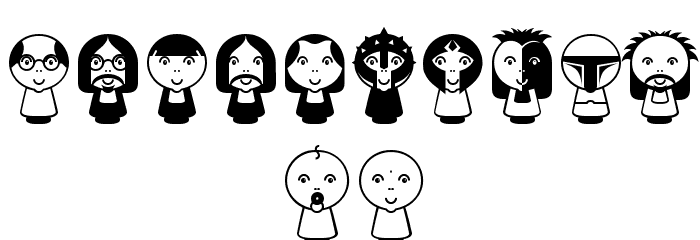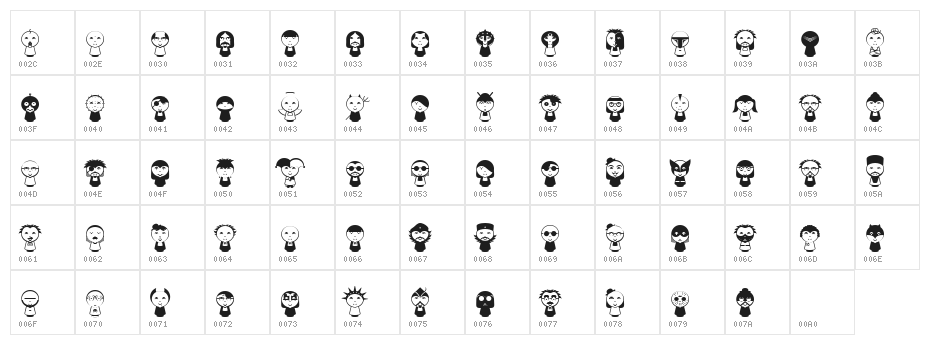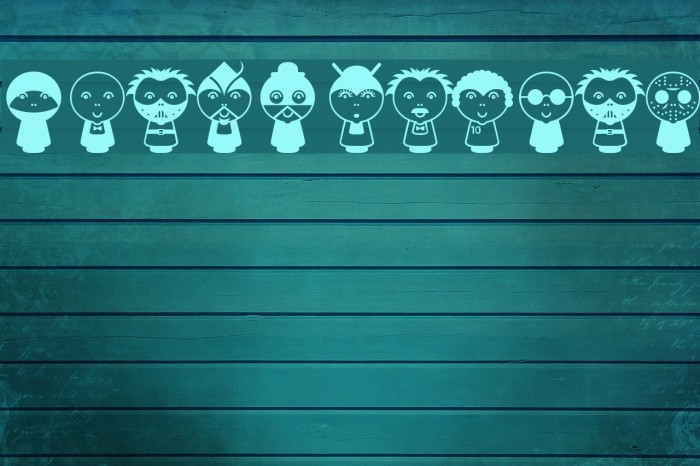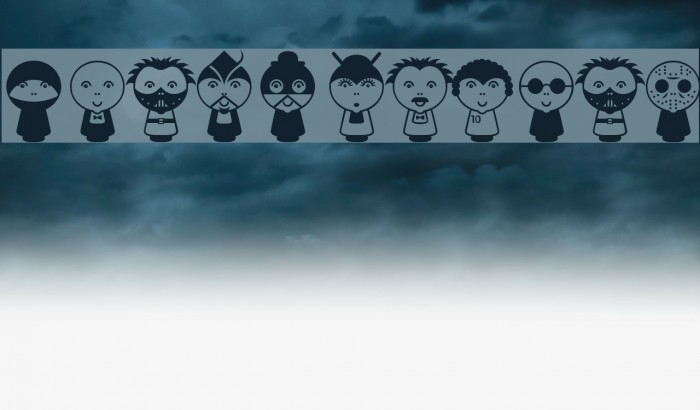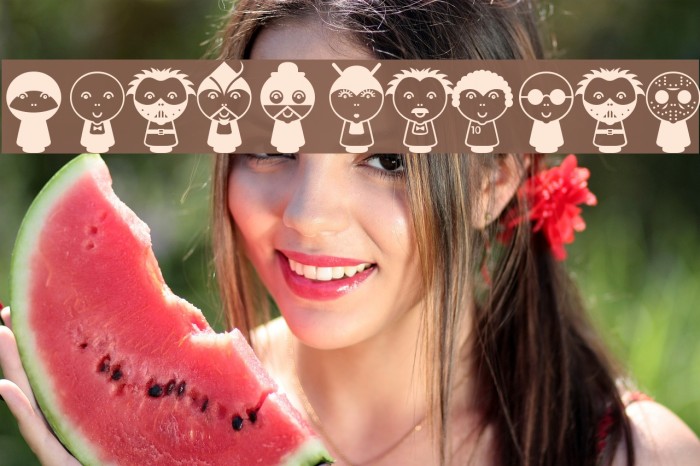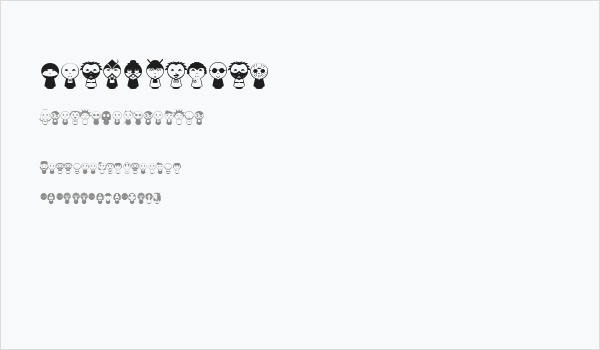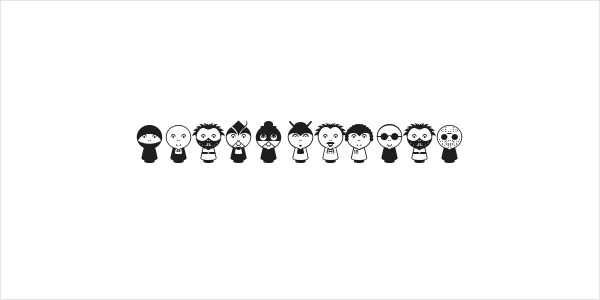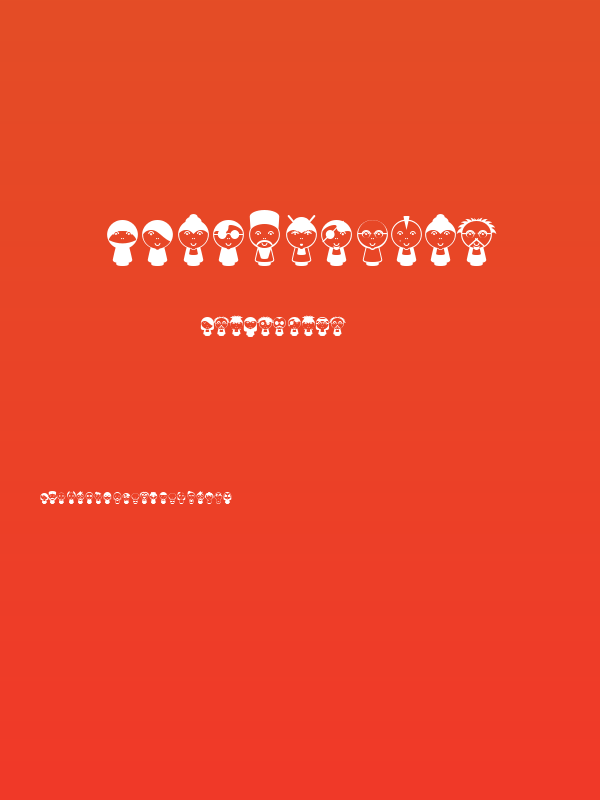
Beluz Family Font
A playful, decorative dingbat font featuring a variety of cartoon-style character illustrations, each with distinct facial expressions, hairstyles, and accessories. The characters are rendered in bold black lines with simple, rounded forms and minimal detail, creating a whimsical and approachable appearance.
Overall StylePlayful, Whimsical, Decorative
Use CaseIcons, Decorative elements, Themed graphics
Proposed ProjectsChildrenÒ€ℒs books, party invitations, educational materials, playful branding, comics, stickers.